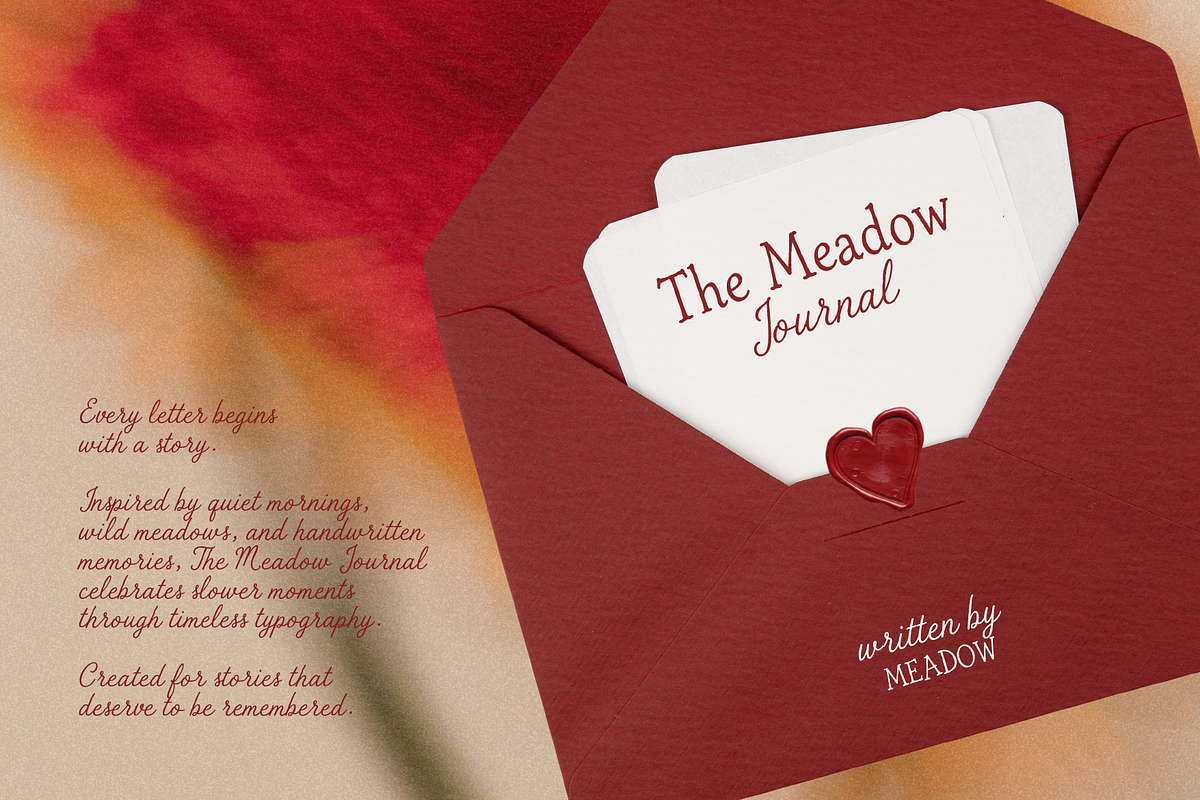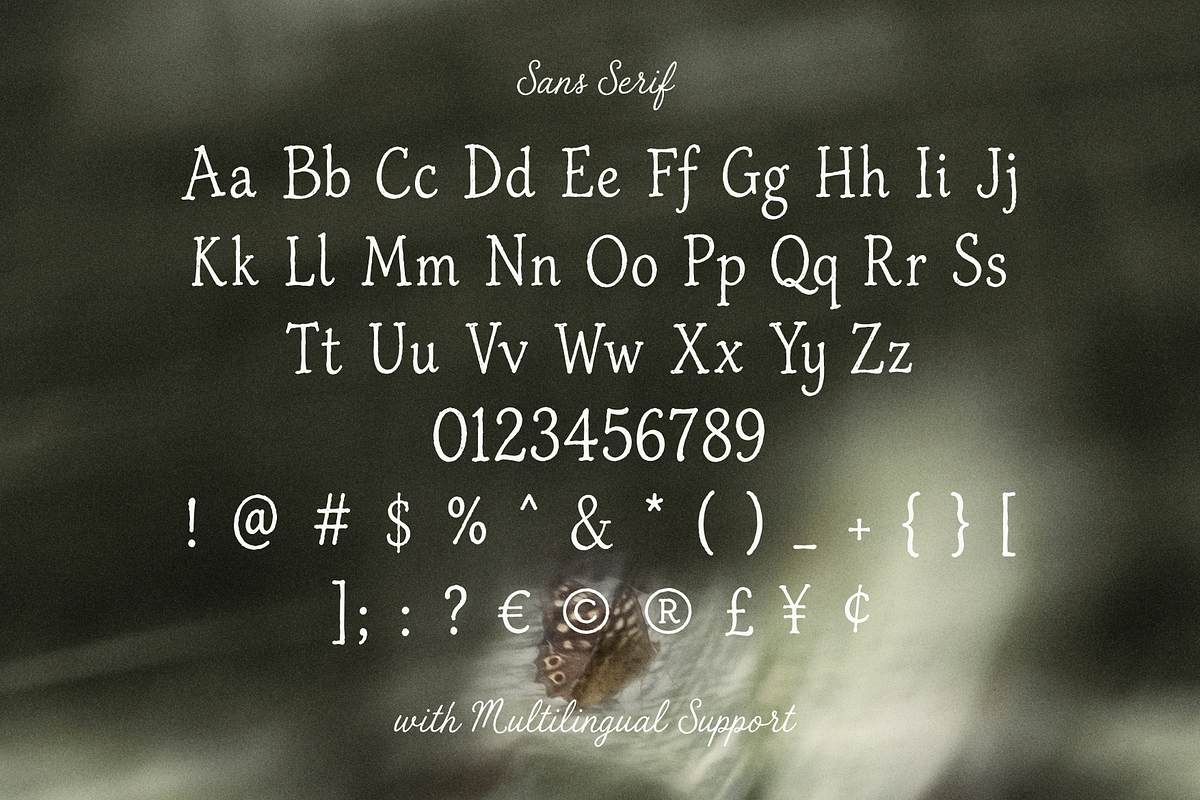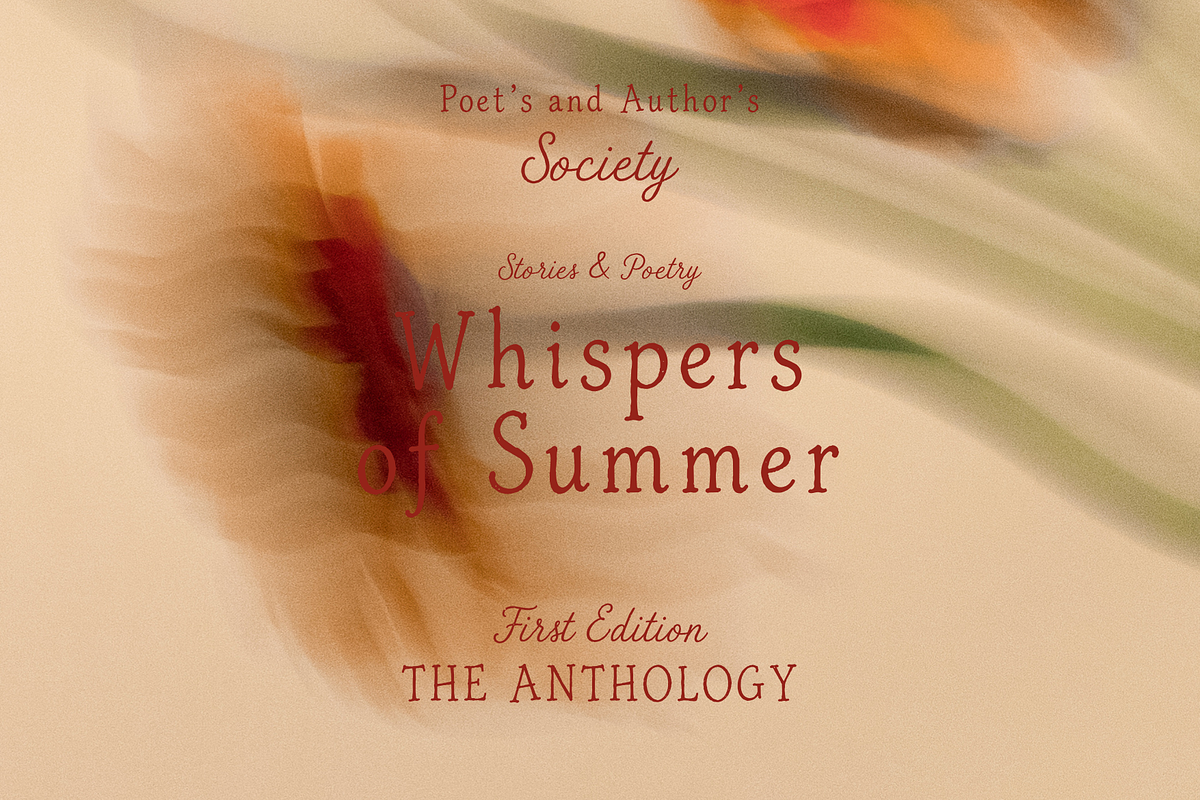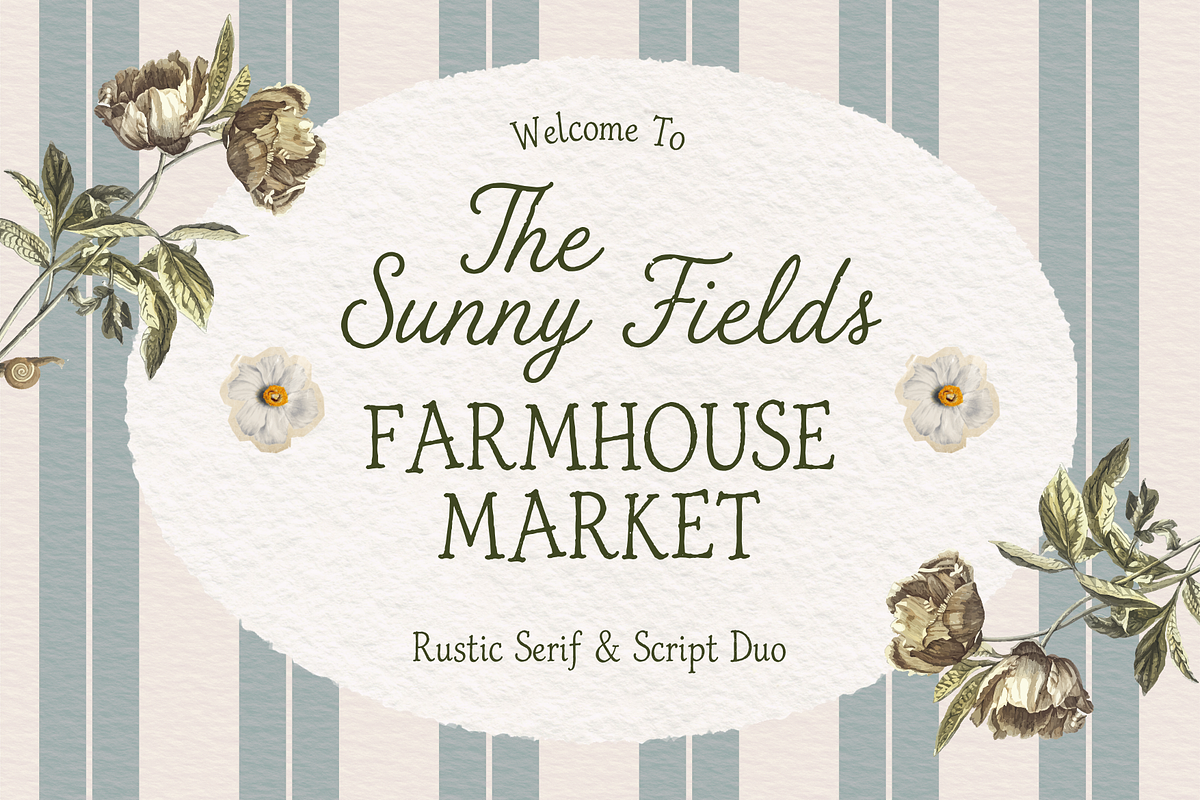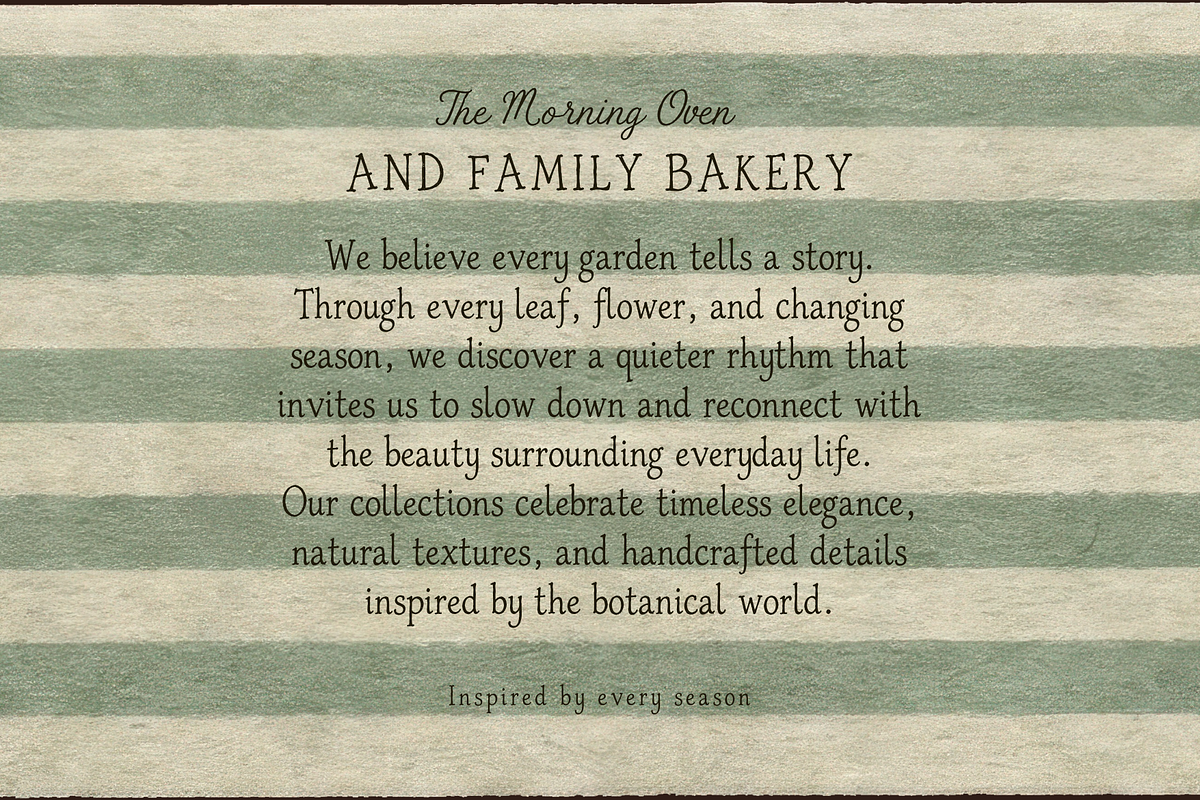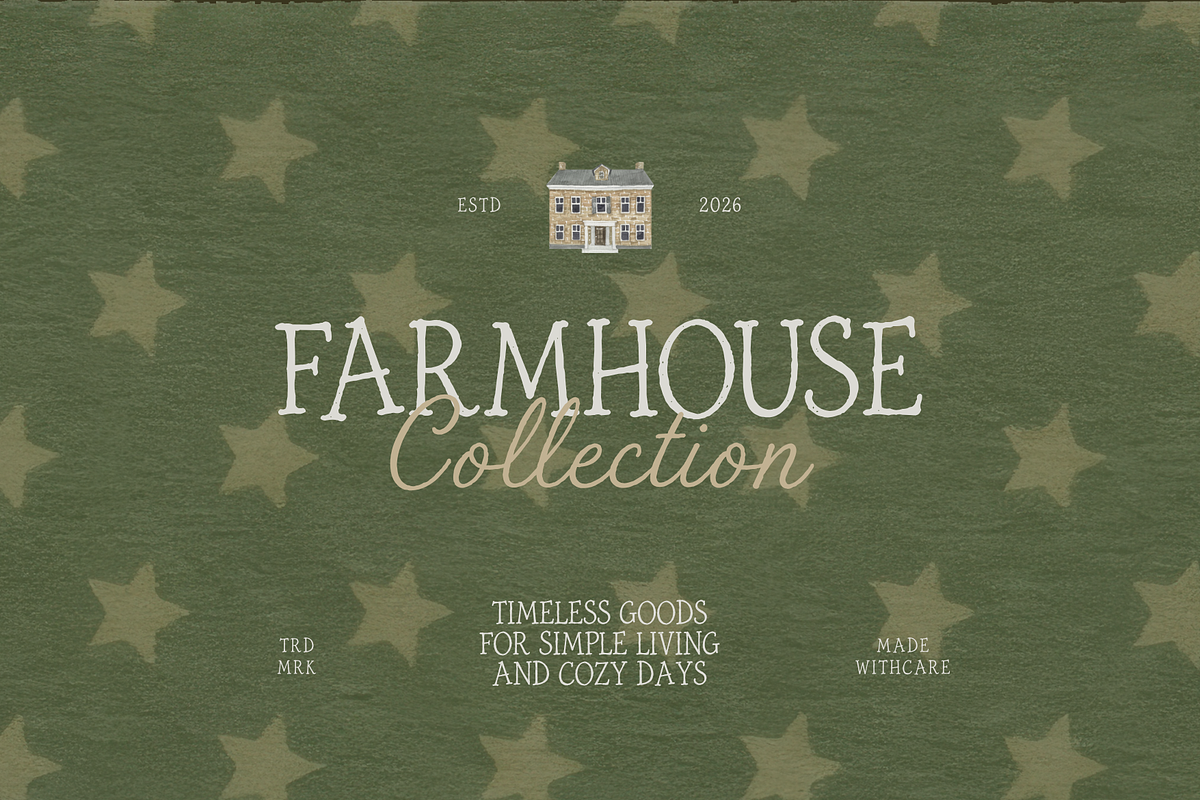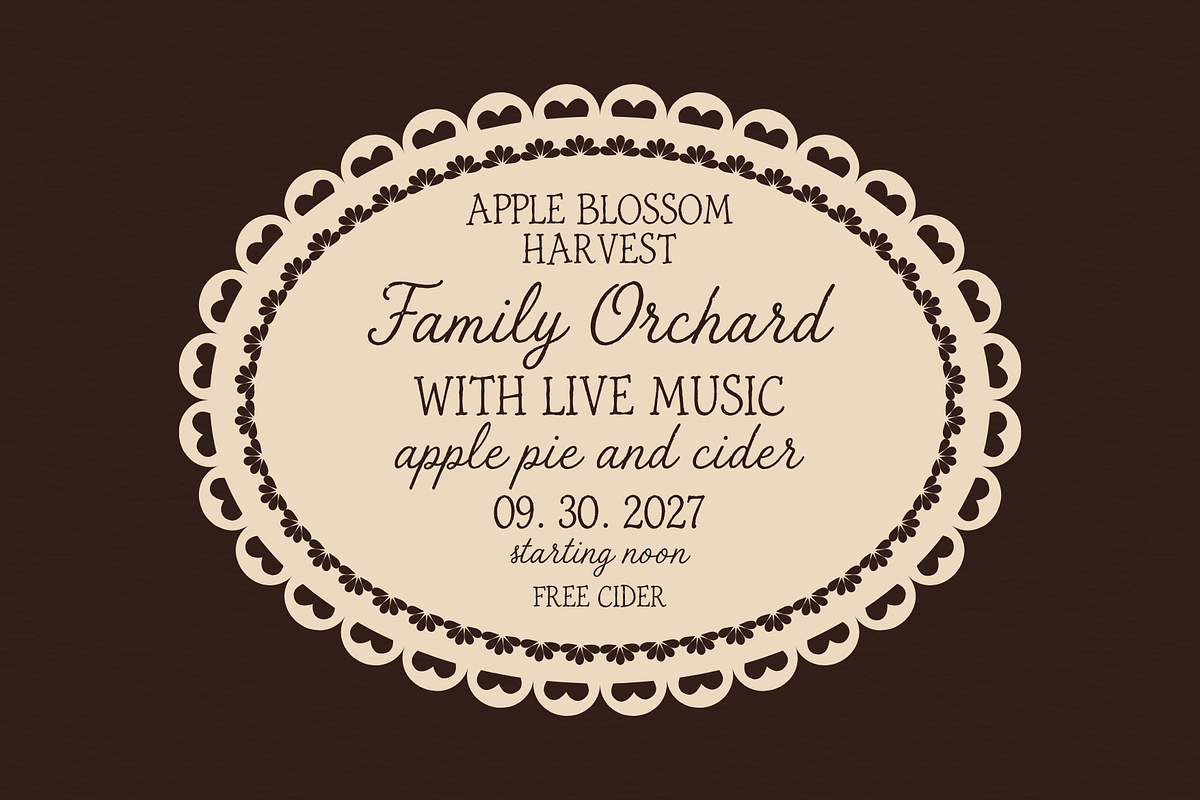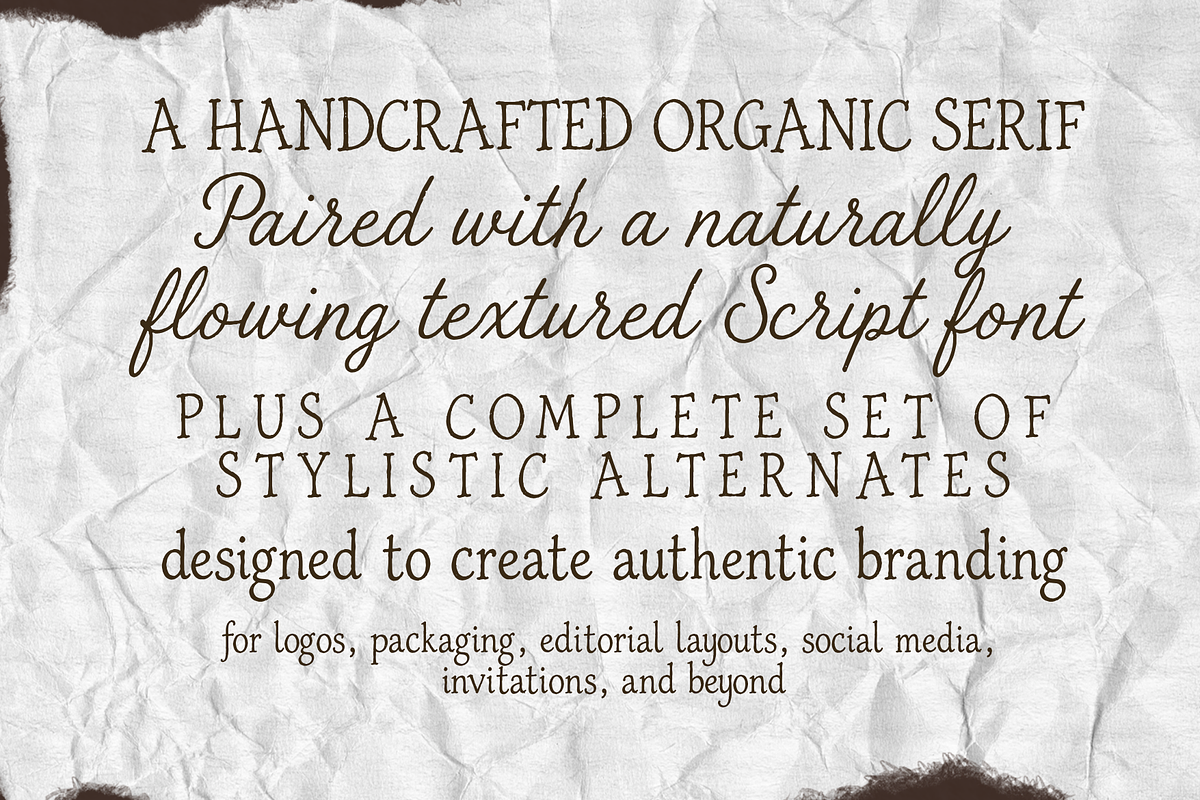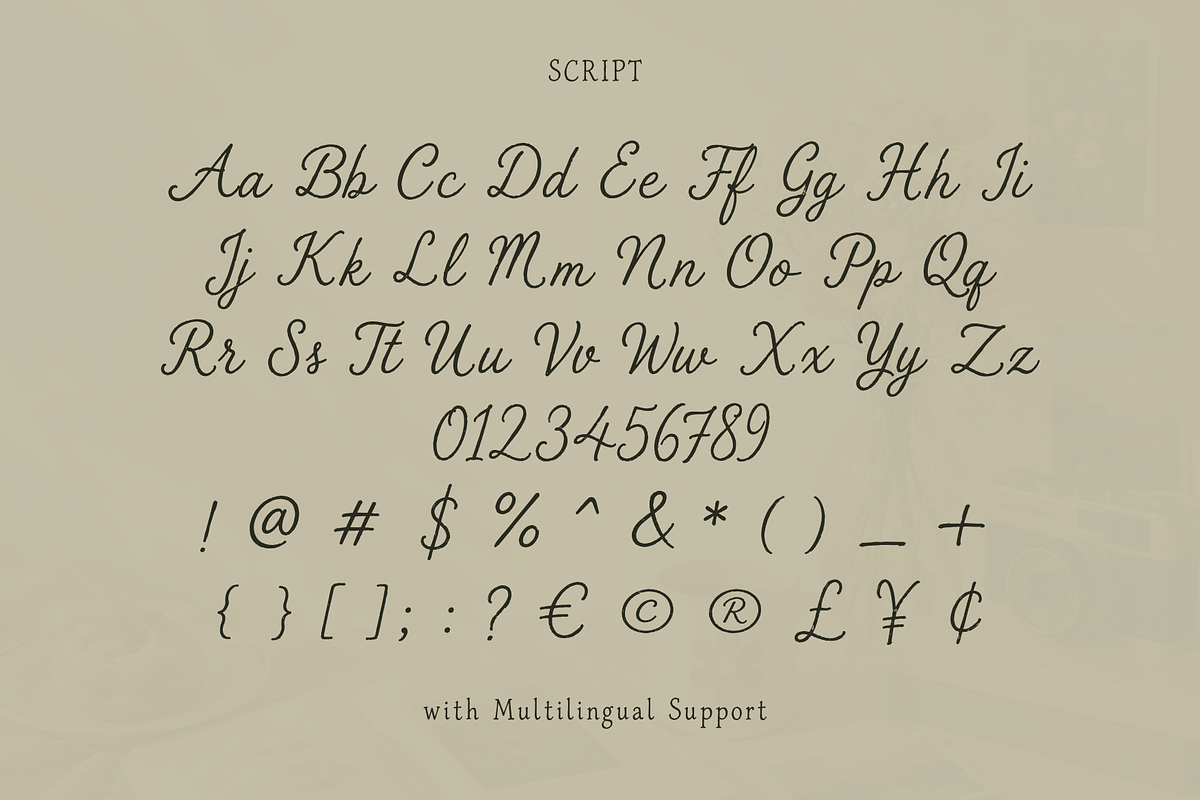
The Sunny Field Font Duo
Meet The Sunny Field, a charming rustic font duo that blends a handcrafted serif with a flowing natural script. Inspired by countryside markets, botanical gardens, vintage paper, and cozy farmhouse living, this collection brings warmth and authenticity to every design.
Whether you're creating a timeless logo, elegant packaging, wedding stationery, or social media graphics, The Sunny Field makes it easy to build beautiful branding with a natural handcrafted feel.
The serif delivers structure and character, while the script adds softness and personality. Together, they create endless typography combinations for modern rustic, cottagecore, botanical, and vintage-inspired projects.
• Brand Identity • Logos & Wordmarks • Packaging Design • Product Labels • Wedding Invitations • Greeting Cards • Editorial Layouts • Book Covers • Social Media Templates • Instagram Posts • Pinterest Graphics • Website Headers • Quotes & Posters • Café & Bakery Branding • Farmhouse & Cottagecore Designs
✔ Rustic Serif Font
✔ Handwritten Script Font
Numbers & Symbols
Beautiful Natural Flow
Great For
Farmhouse Brands
Botanical Businesses
Florists
Organic Products
Handmade Shops
Coffee Shops
Bakeries
Candle Brands
Soap Packaging
Lifestyle Bloggers
Creative Agencies
Etsy Sellers
Canva Designers
Why You'll Love It
The Sunny Field was designed to help creatives build authentic brands with less effort. Instead of searching for matching fonts, you'll have a perfectly balanced serif and script that naturally work together.
The handcrafted details add personality without sacrificing readability, making this duo suitable for both large headlines and elegant signature accents.
Its timeless aesthetic works beautifully across both print and digital projects.